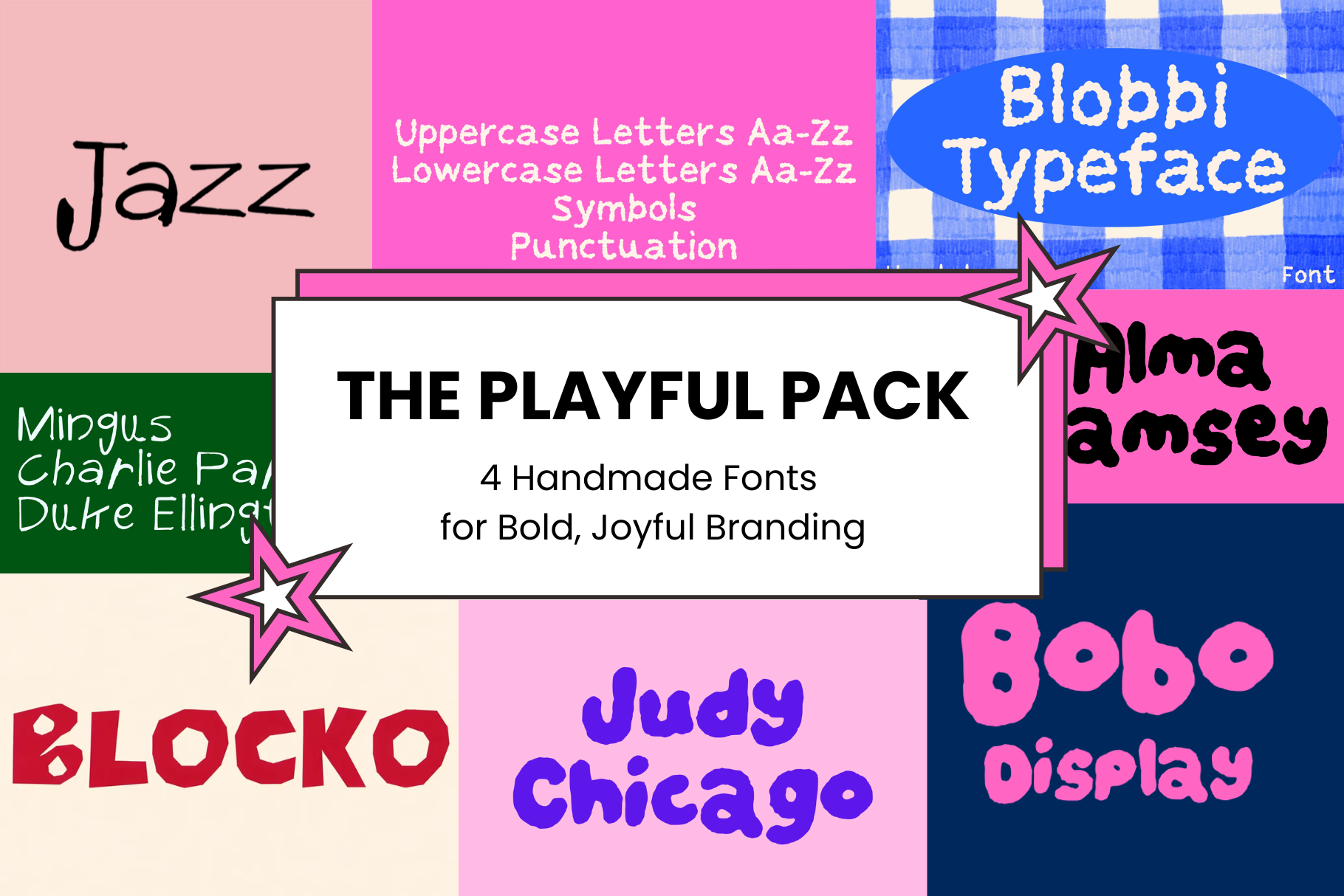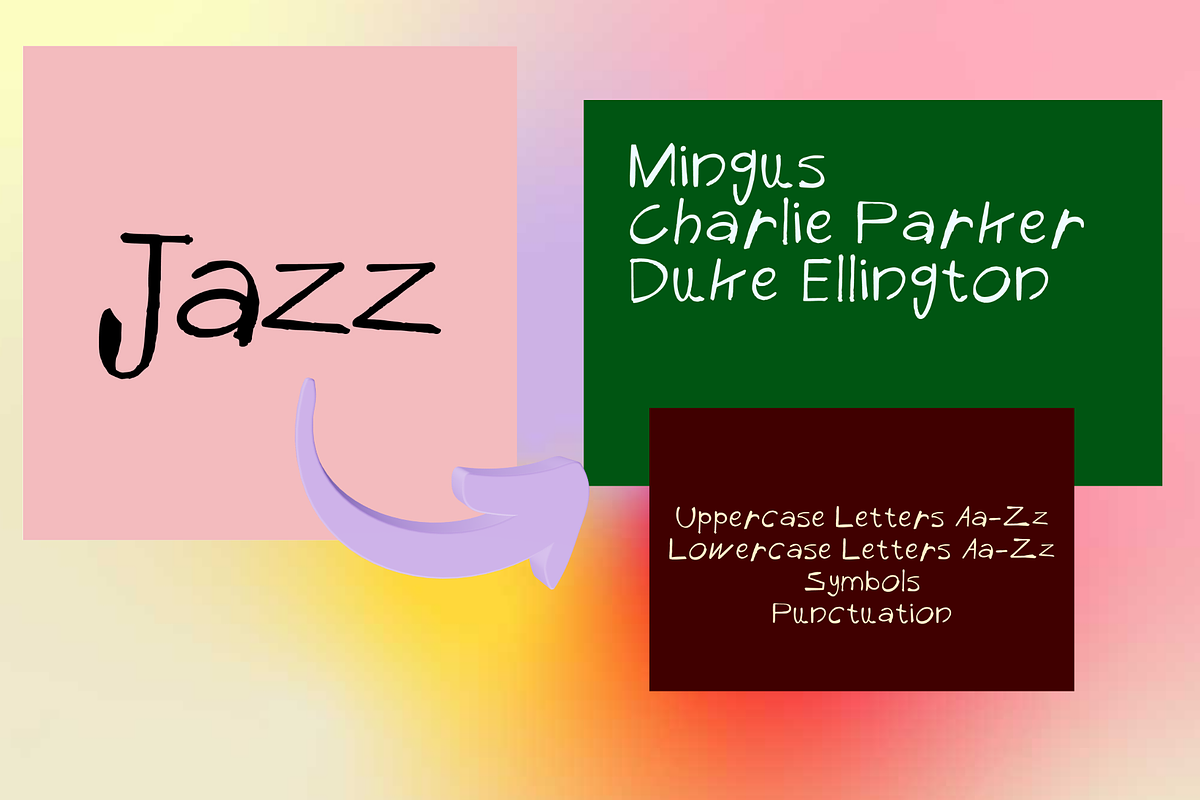
The Playful Pack - 4 Joyful Fonts
Some projects don't want to be serious. This bundle is for those ones.
The Playful Pack brings together four of our most expressive handmade fonts - each one full of personality, energy, and the kind of warmth that only comes from something made entirely by hand. Whether you're building a children's brand, designing festival merch, launching a food product, or creating social content that actually stops the scroll - these four fonts have you covered.
What's in the bundle:
Blobbi - Round, chunky, and completely impossible to ignore. Perfect for logos, packaging, and sticker design that needs to feel fun and immediate.
Blocko - Raw handmade block lettering with real grit. Built for streetwear graphics, merch, music branding, and anything that wants to feel authentically handcrafted.
Bobo - Bubbly, friendly, and full of joy. The go-to for children's brands, party stationery, snack packaging, and any project that needs to make people smile instantly.
Jazz - Loose, rhythmic, and alive on the page. Ideal for music events, bar branding, cocktail menus, festival posters, and creative projects with real energy.
Children's brands, toys & family products
Food & drink packaging and branding
Music events, festivals & gig posters
Streetwear, merch & apparel graphics
Social media content & reels covers
Sticker design & print products
Full uppercase & lowercase character sets
Numbers & punctuation for all fonts
Multilingual support (Western European characters)